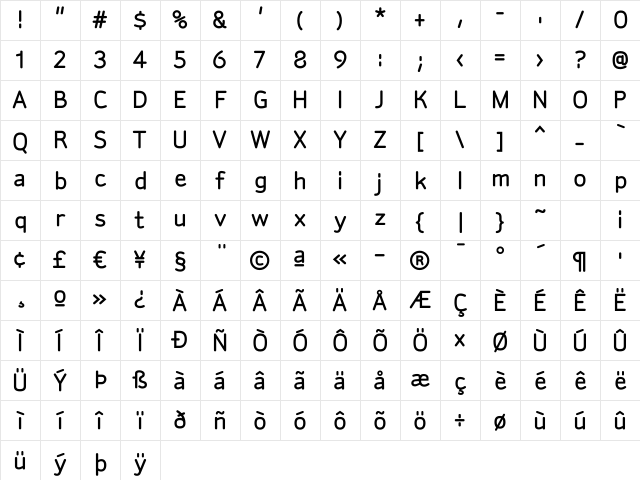
SylviaMedium Regular
Design Context for SylviaMedium
SylviaMedium is a composed and adaptable typeface that performs quietly and consistently across a wide range of design contexts.